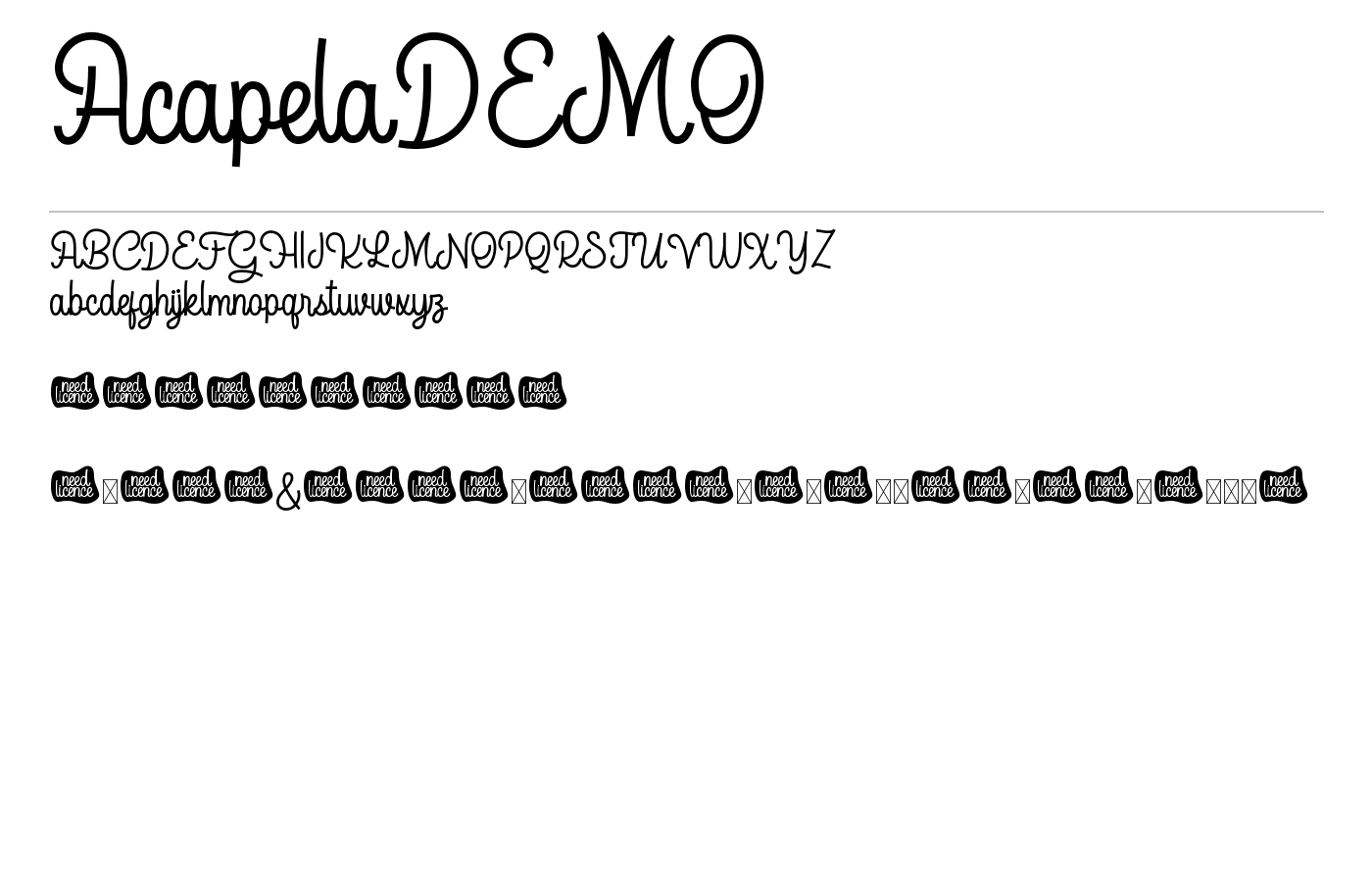
AcapelaDEMO is a playful and elegant script font with a smooth, continuous flow that mimics casual handwriting. Its slender strokes and whimsical letterforms create a friendly and approachable feel, making it ideal for creative projects, invitations, or branding that seeks a personal and charming touch. This font works best in display settings where its unique style can shine and add character.
AcapelaDEMO Font